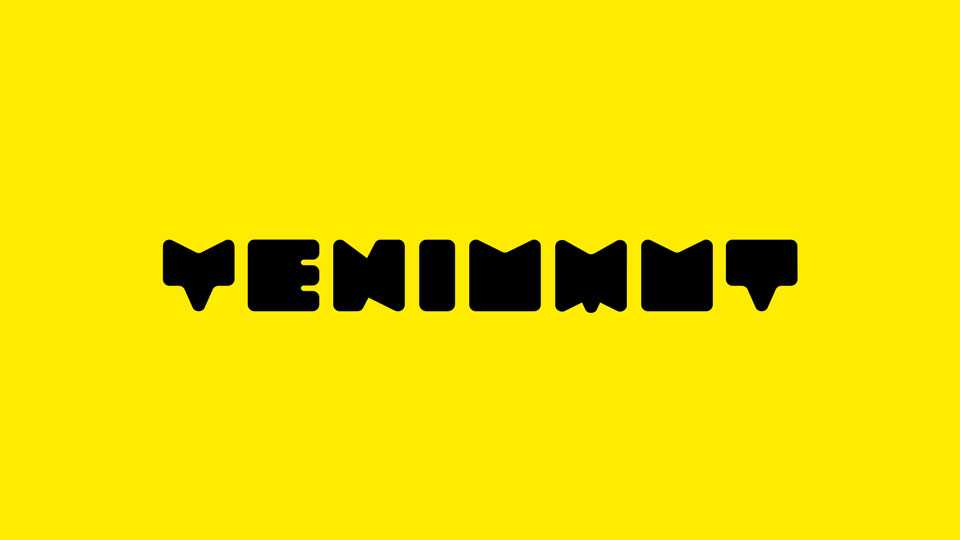
Download YeniUmut font, a minimalist typeface with smooth corners and bold shapes that commands attention with its striking presence.
Designer: Umut Yıldırım